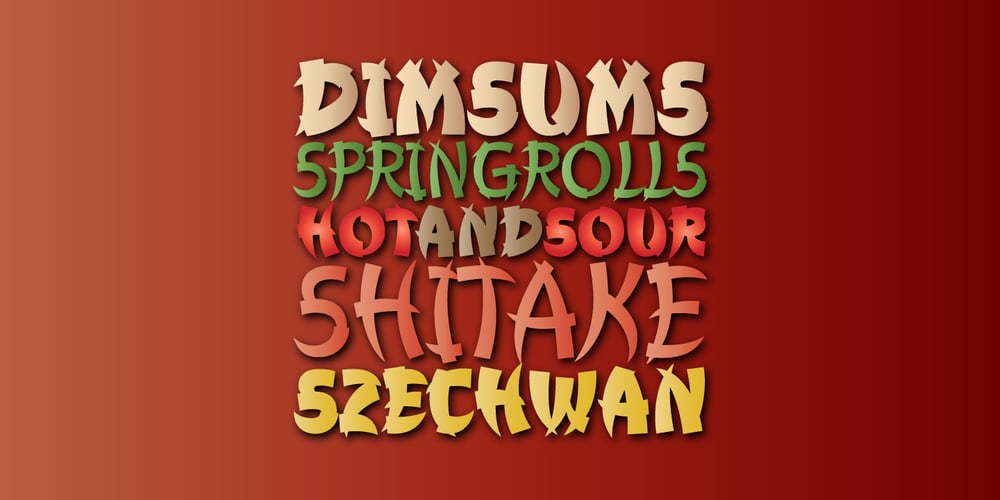
Churchward Chinatype Font Family was designed by Joseph Churchward and published by BluHead Studio. Churchward Chinatype contains 5 styles and family package options. BluHead Studio LLC is pleased to announce the release of Churchward Chinatype by New Zealand typeface designer Joseph Churchward. This stylized brush script is intended for display use, but is surprisingly legible at smaller point sizes.